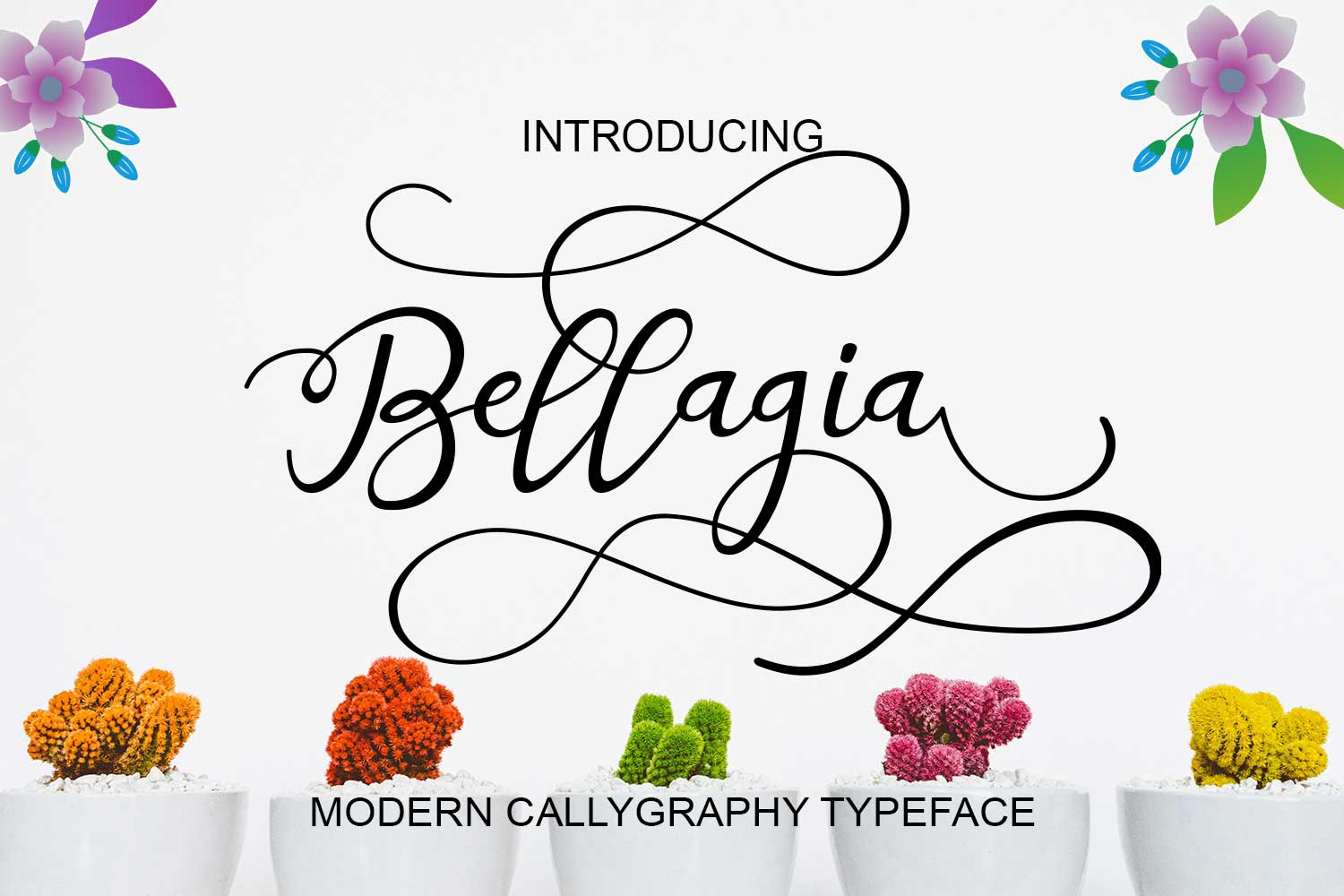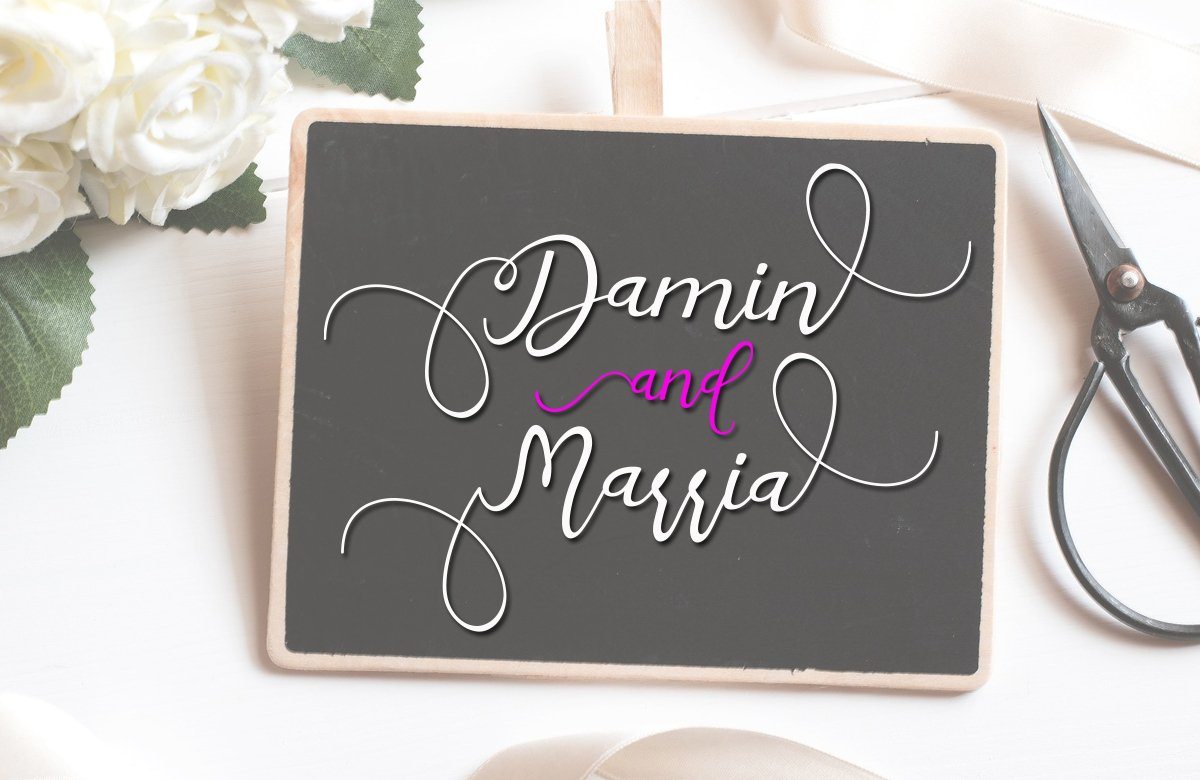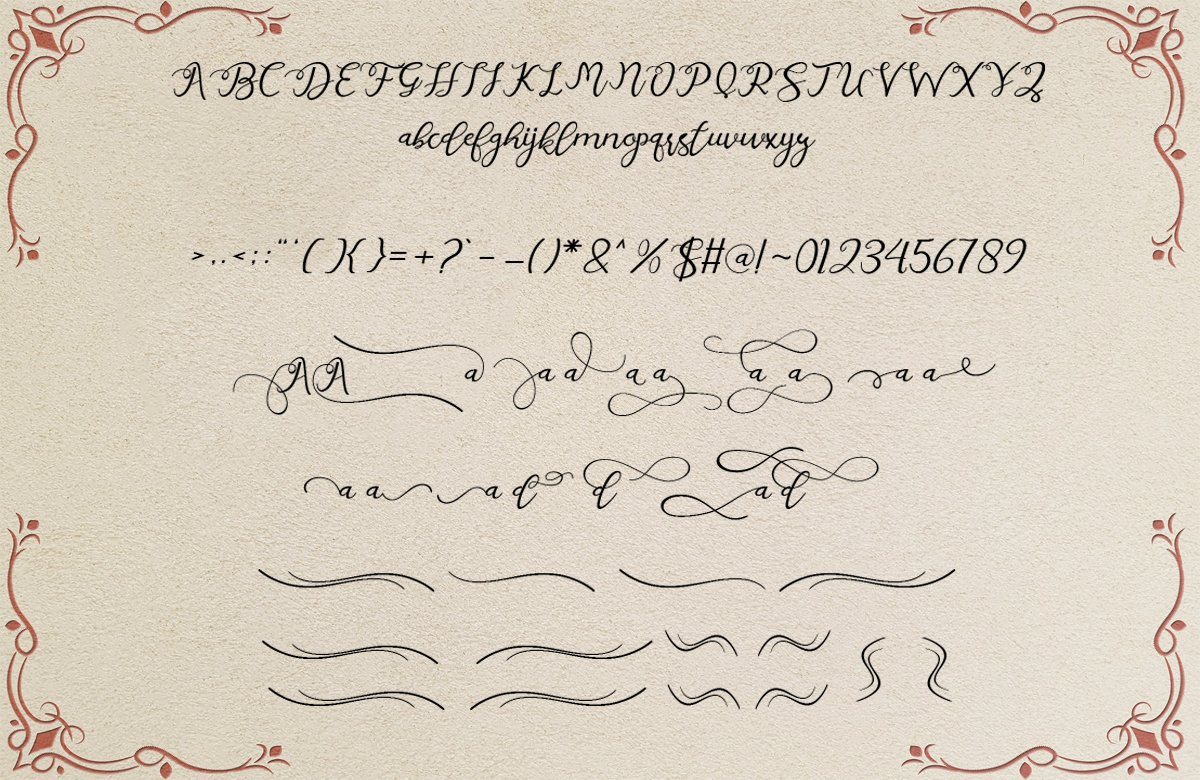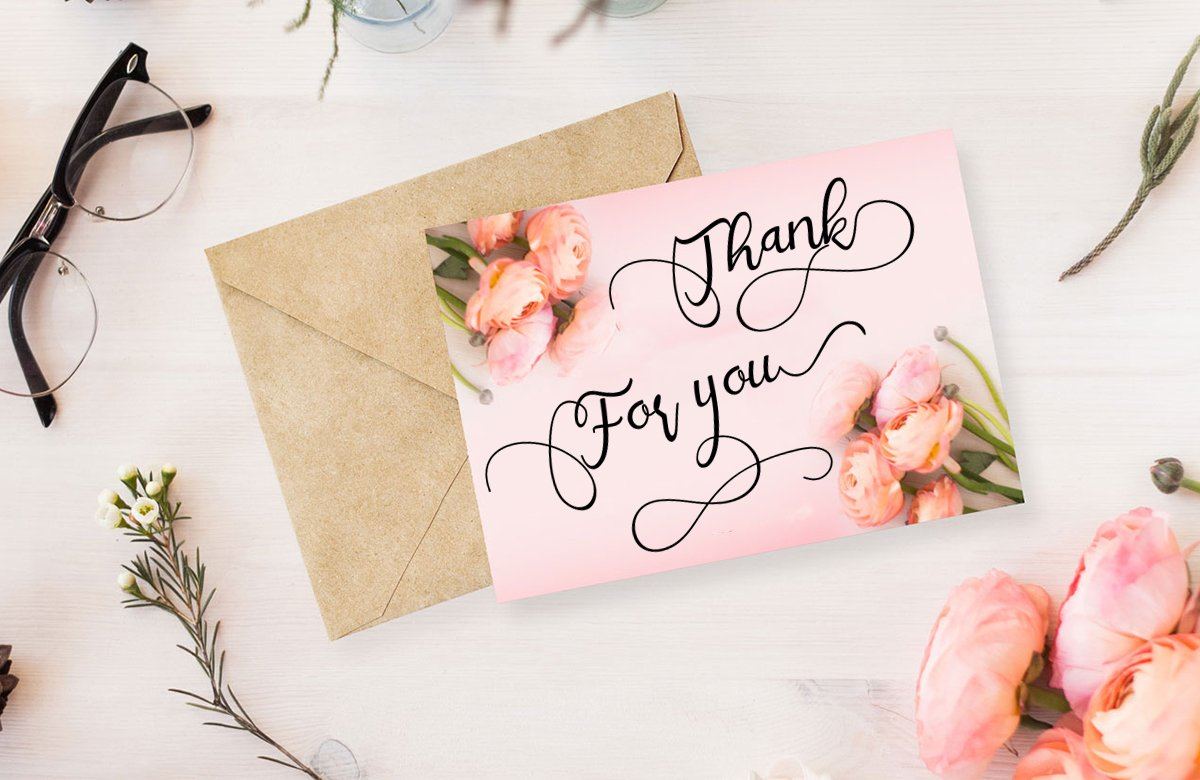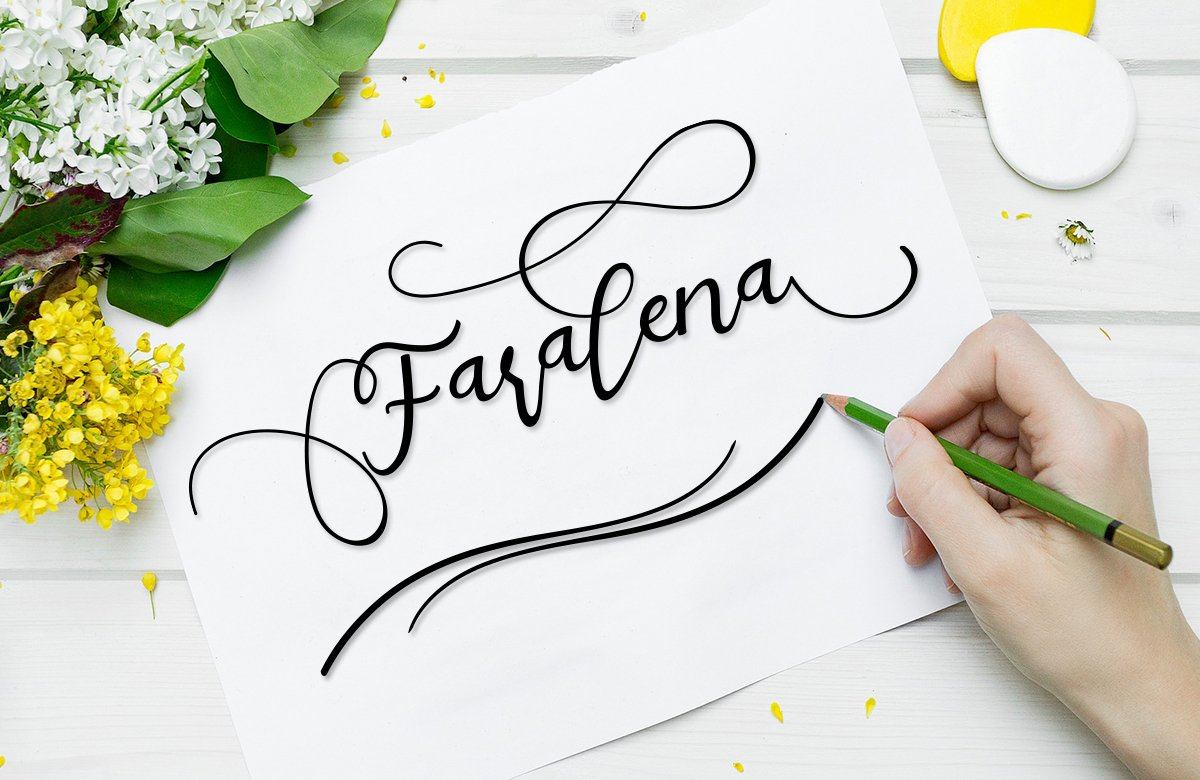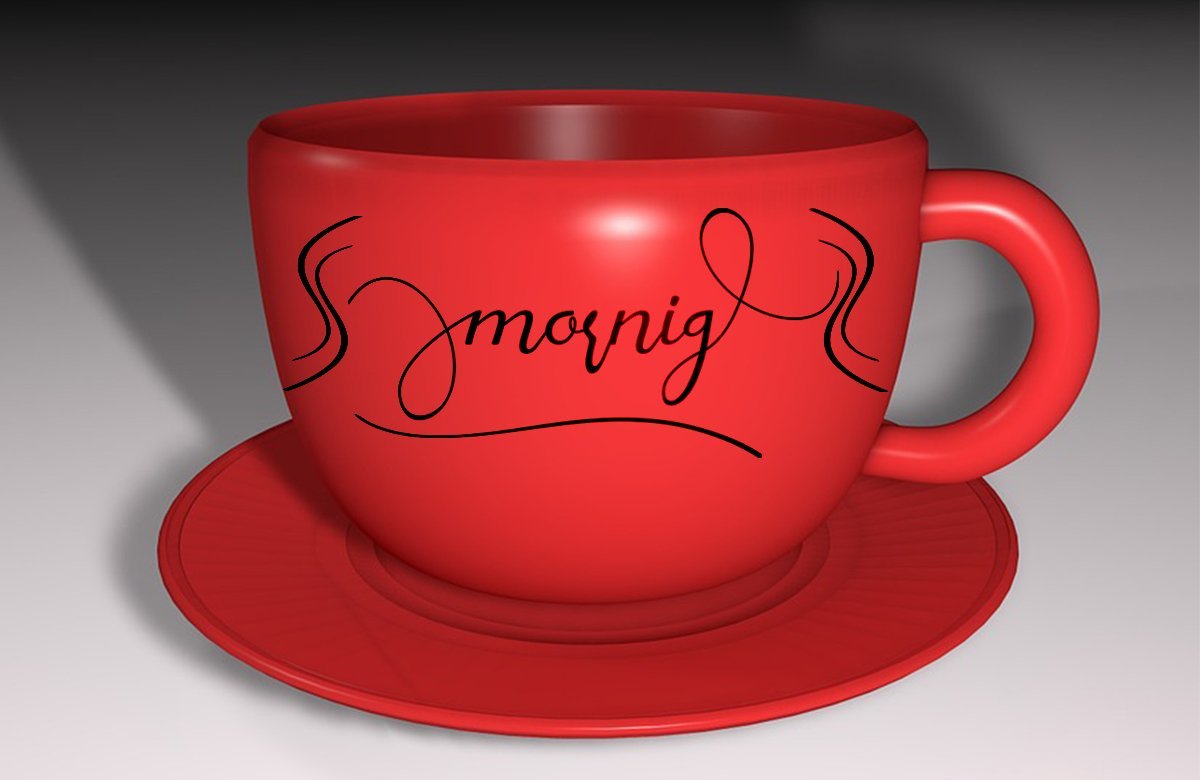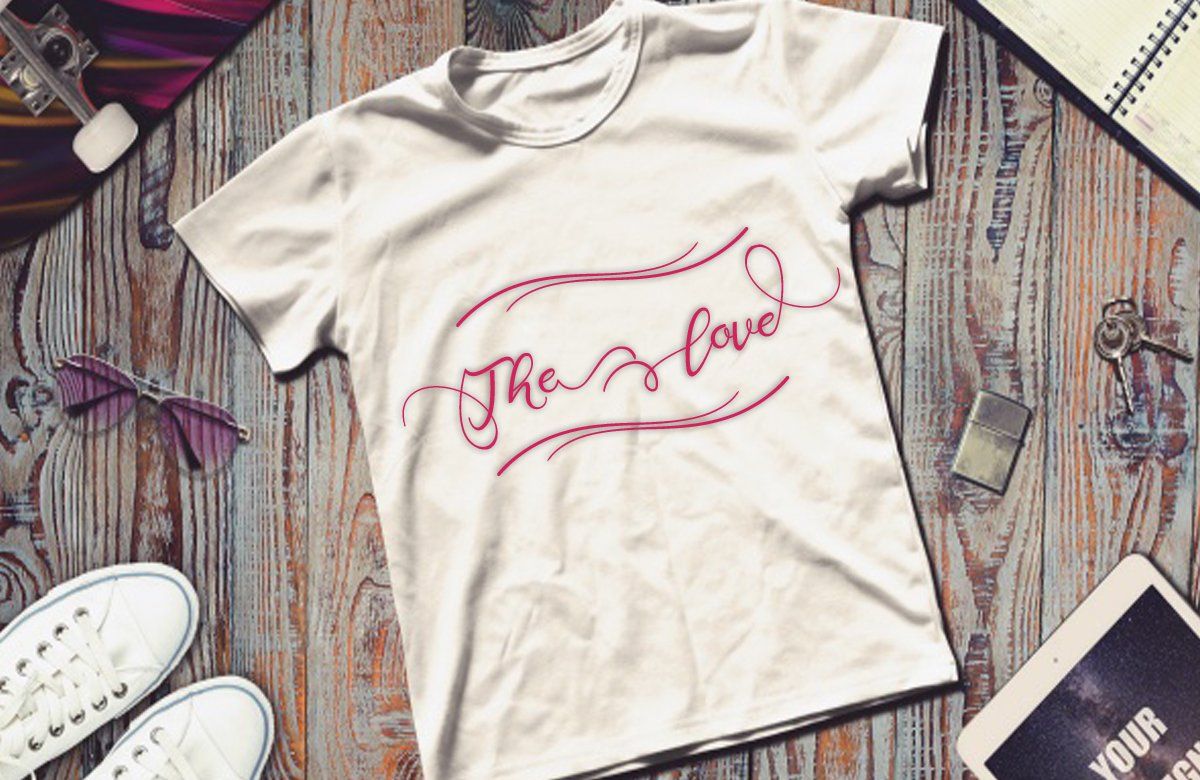
Bellagia
Hello, all. I Want To Introduce New Fonts Bellagia Script New fresh & modern style with handmade calligraphy, decorative characters and dancing lineage! So wonderful are invitations like greeting cards, branding material, business cards, quotes, posters, and more !! Bellagia Script The comes with 694 glyphs. Alternate characters are divided into several Open Type features such as Swash, Stylistic Sets, Stylistic Alternate, Contextual Alternate. Open Type features are accessible by using Open Type savvy programs such as Adobe Illustrator, Adobe InDesign, Adobe Photoshop Corel Draw X versions, and Microsoft Word. And this font has code PUA unicode (font with special code). So that all alternative characters can be easily accessed by craftsmen or designers. Bellagia Script Uppercase & lowercase International signature & symbol Punctuation Support & PUA number Unicode Style Style Alternative Style Style Range 1-21 Contextual Character Variations. ZIP files include the following: Bellagia.OTF Script Bellagia.TTF Script Bellagia Script The comes with 694 glyphs. Alternate characters are divided into several Open Type features such as Swash, Stylistic Sets, Stylistic Alternate, Contextual Alternate. Open Type features are accessible by using Open Type savvy programs such as Adobe Illustrator, Adobe InDesign, Adobe Photoshop Corel Draw X versions, and Microsoft Word. And this font has code PUA unicode (font with special code). So that all alternative characters can be easily accessed by craftsmen or designers. Bellagia Script Uppercase & lowercase International signature & symbol Punctuation Support & PUA number Unicode Style Style Alternative Style Style Range 1-21 Contextual Character Variations. ZIP files include the following: Bellagia.OTF Script Bellagia.TTF Script If you do not have programs that support OpenType features like Adobe Illustrator and CorelDraw X Versions, you can access all alternative flying machines using Font Book (Mac) or Character Map (Windows). If you have any questions, please feel free to contact me via email  Thanks and good luck 🙂 Thank you for buying!